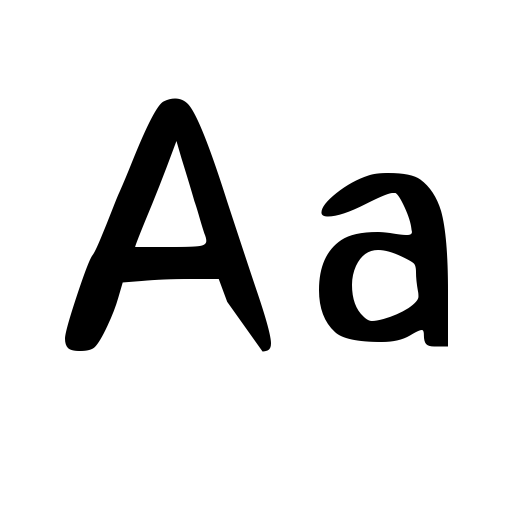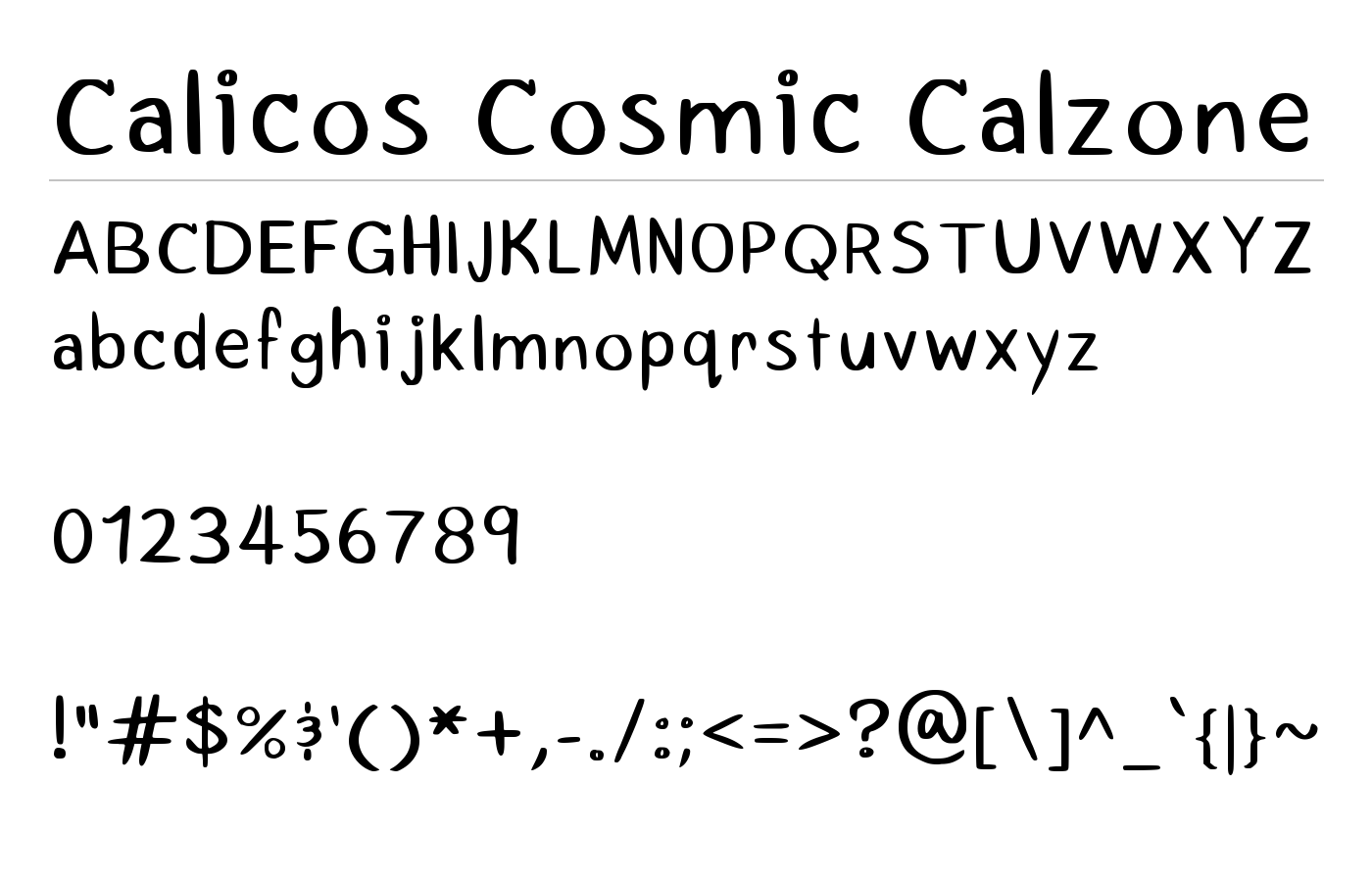
Calicos Cosmic Calzone is a playful, hand-drawn sans serif font with a casual and friendly vibe. Its irregular shapes, moderate x-height, and slightly uneven strokes create an inviting and approachable look, perfect for informal and creative designs. This font works well in branding for fun, youthful projects, as well as in children's books, posters, and websites seeking a warm, personal touch.
Calicos Cosmic Calzone Font
About Calicos Cosmic Calzone Font